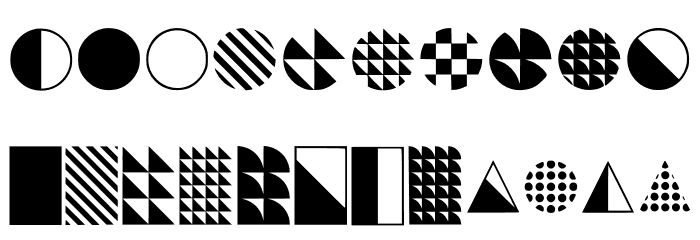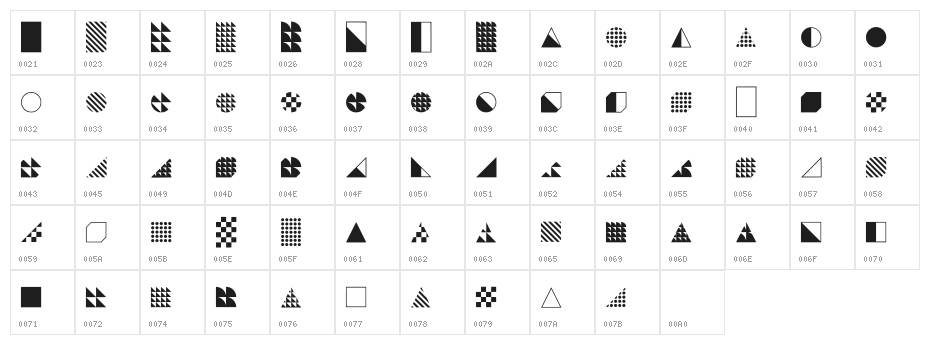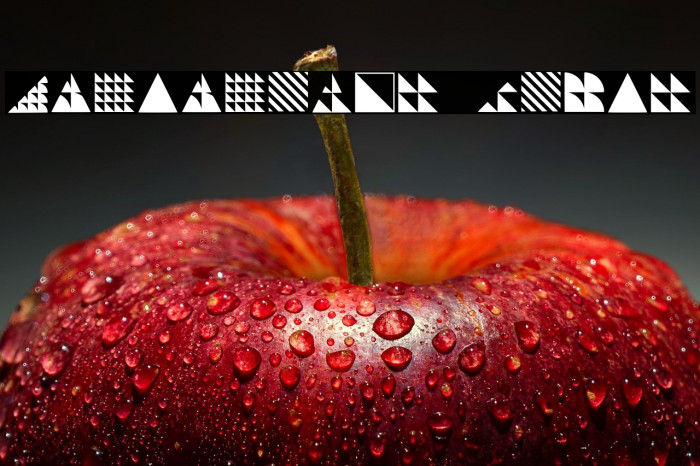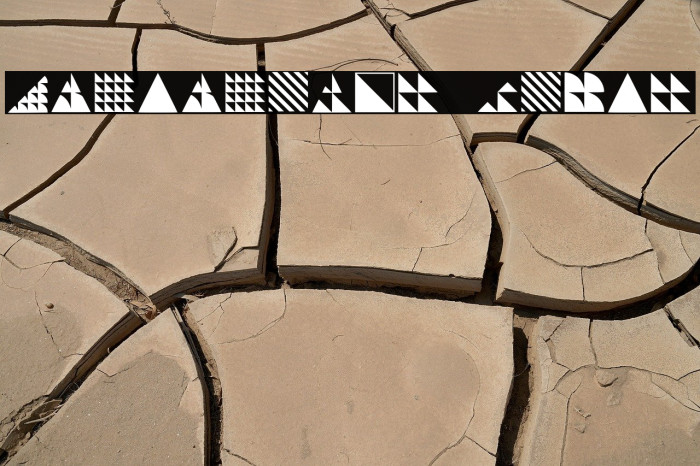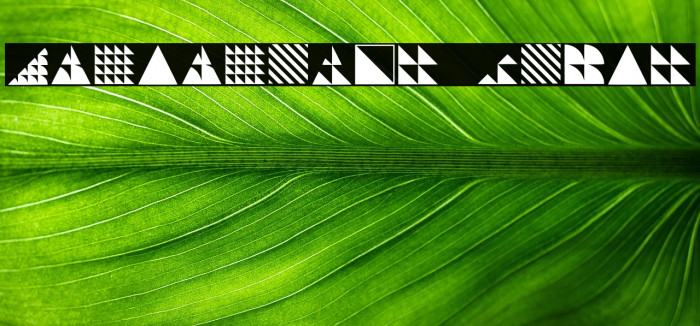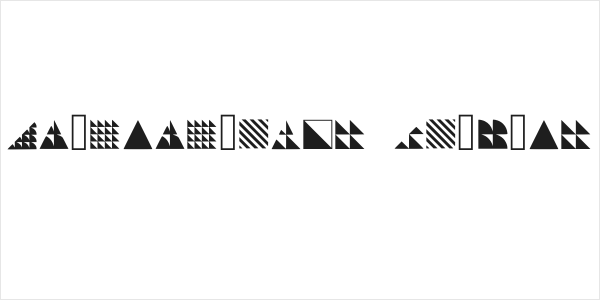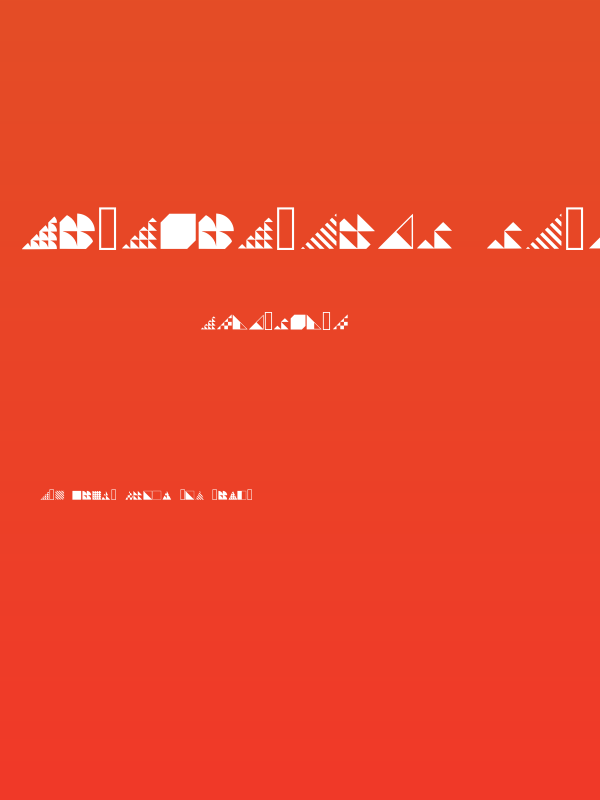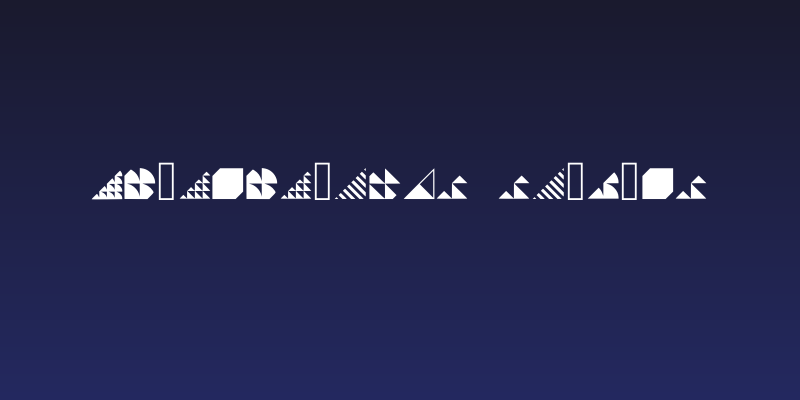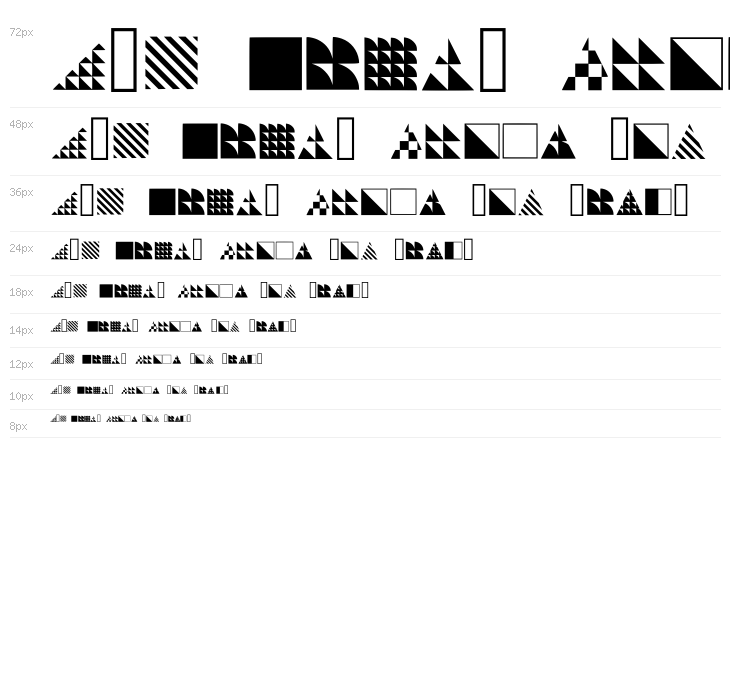
Instantdecor Regular Font
Instantdecor Regular Description
This font is a bold, geometric display typeface that uses a variety of shapes and patterns to form each character. The letters are constructed from triangles, squares, circles, and other geometric forms, often filled with stripes, checkered patterns, or solid fills. The overall appearance is highly decorative and abstract, making it more suitable for artistic and creative projects rather than traditional text. The unique design of each character makes it stand out, offering a modern and avant-garde aesthetic.
| Overall Style | Modern, Avant-garde |
| Use Case | Logos, Posters, Artistic projects |
| Proposed Projects | Ideal for modern art posters, album covers, branding for creative industries, and any project requiring a striking visual impact. |